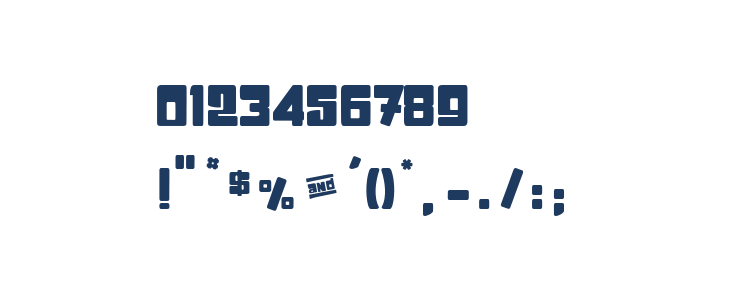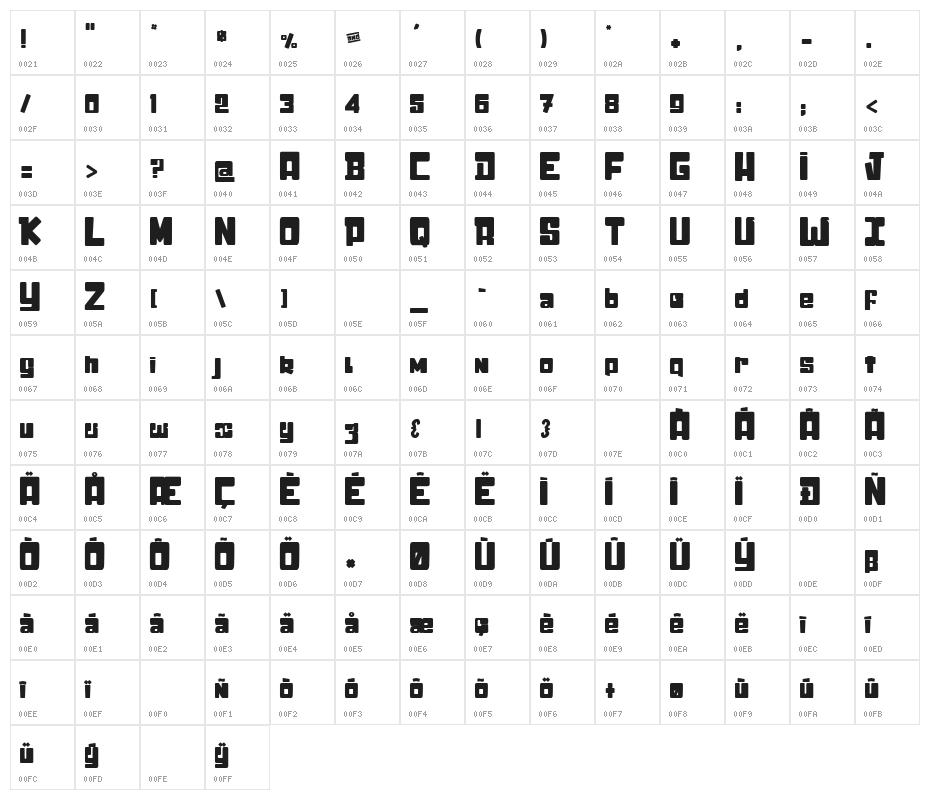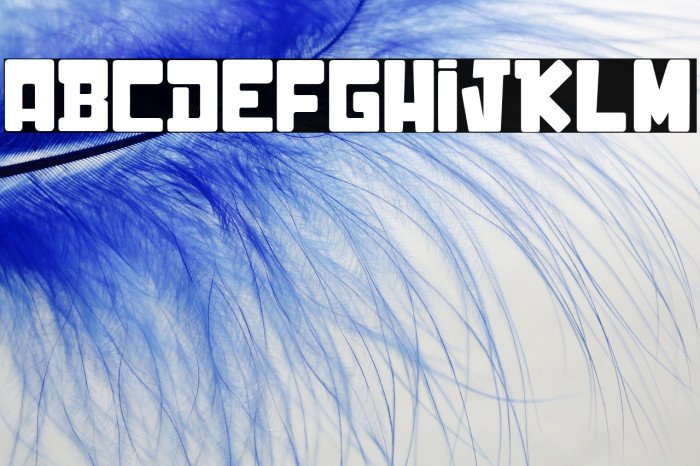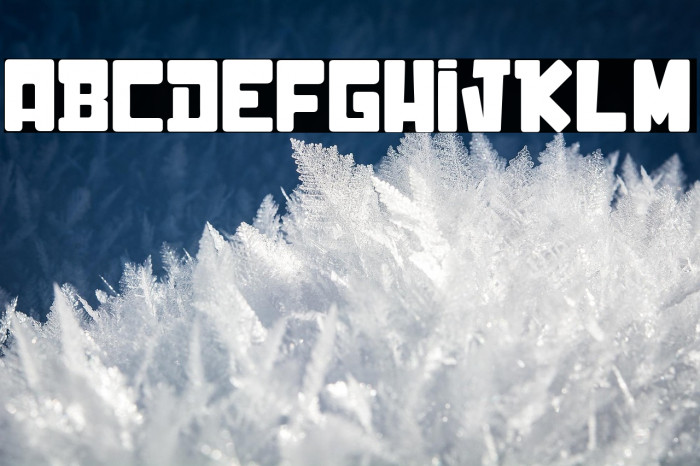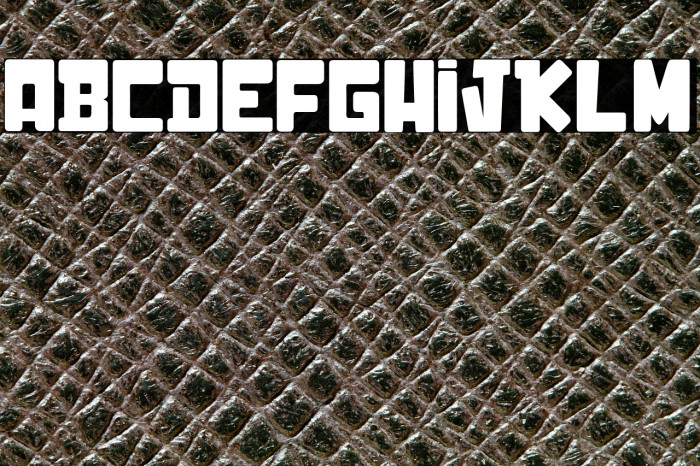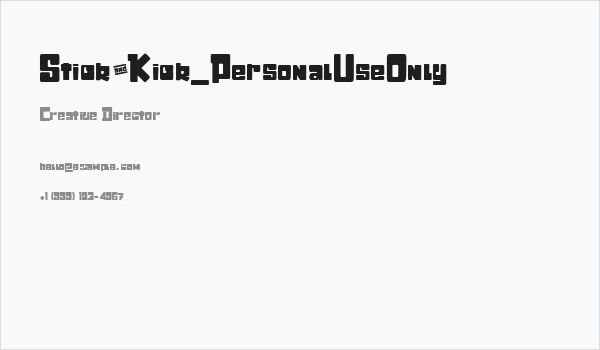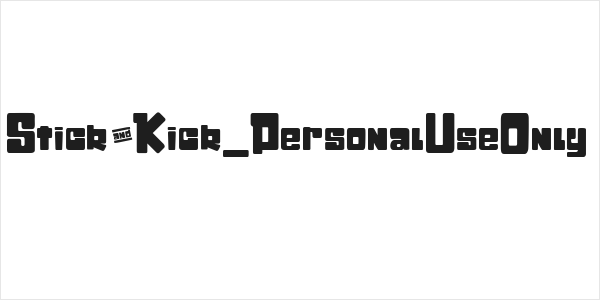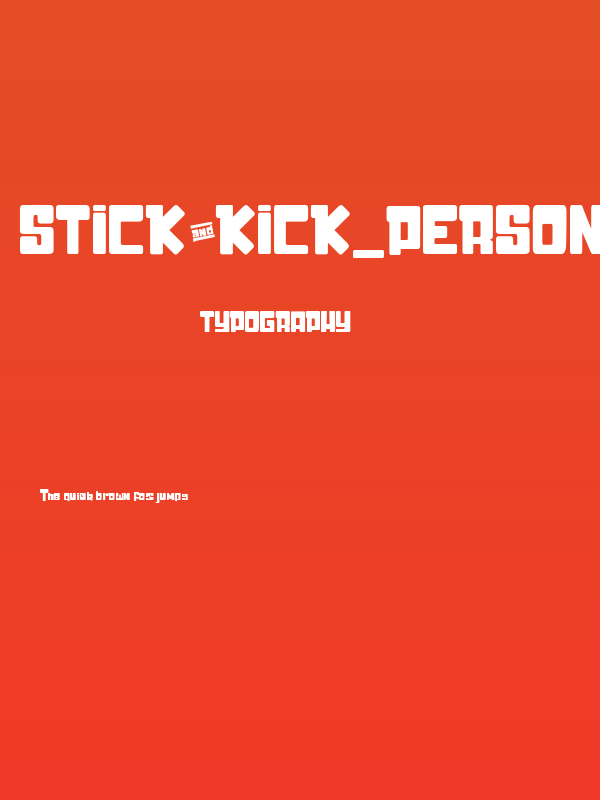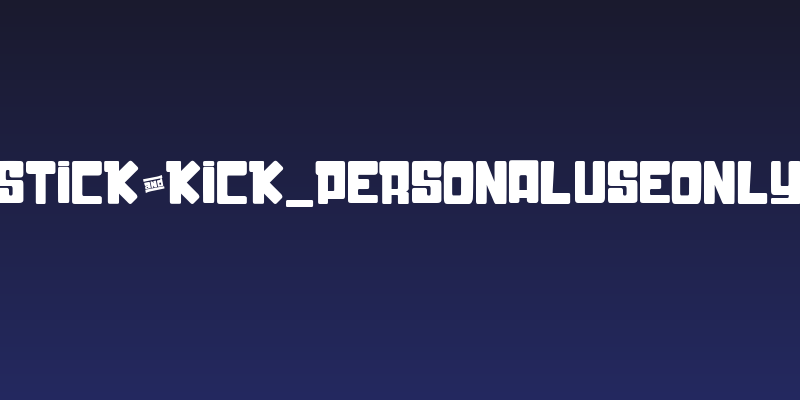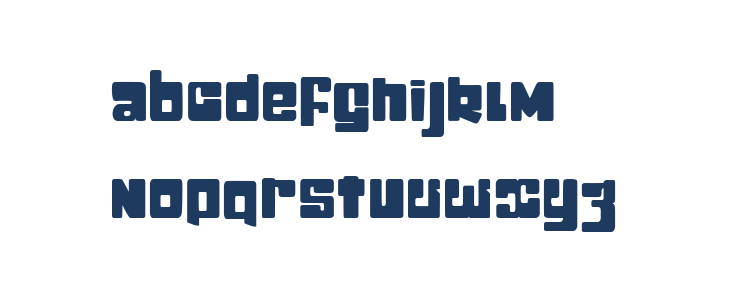
Stick&Kick_PersonalUseOnly Font
Stick&Kick_PersonalUseOnly Description
This font features a bold and blocky design with a strong geometric influence. The characters are uniformly thick, giving them a robust and impactful appearance. The uppercase and lowercase letters maintain a consistent width, creating a cohesive look across the alphabet. The numbers and special characters follow the same design principles, ensuring uniformity. The font's style is reminiscent of industrial or urban themes, making it suitable for projects that require a strong visual presence. Its boldness and unique character shapes make it stand out, while the consistent stroke width provides a sense of stability and strength.
| Overall Style | Modern, Industrial |
| Proposed Projects | Ideal for posters, logos, headlines, and branding materials that require a strong and impactful visual statement. |